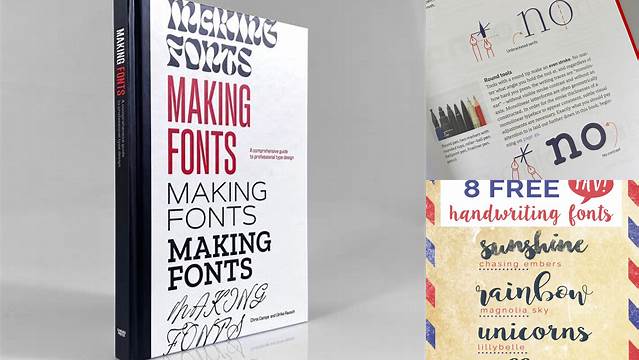
Free Hand Fonts: Styles & Uses For Unique Typography
Hey guys! Ever wondered how to make your designs pop with a personal touch? Well, diving into the world of free hand fonts might just be the answer. These fonts are all about injecting a bit of your own style and flair into your projects. Let's explore everything you need to know about these awesome fonts, from what they are to how you can use them like a pro.
1. What Exactly is a Free Hand Font?
So, what's the deal with free hand fonts? Simply put, they're fonts that mimic the look of actual handwriting. Think about it – no two people write exactly alike, right? That’s the beauty of these fonts; they bring that same unique, human quality to your digital designs. Whether it’s a flowing script or a quirky, blocky style, a free hand font adds a personal touch that standard fonts just can't match. They're perfect for anything that needs a bit of warmth and authenticity, from invitations to logos. You can find a huge variety of these fonts, each with its own personality, making it easy to find one that fits your project perfectly. So, ditch the rigid typefaces for a bit and let your designs breathe with the charm of a free hand font! Imagine your website header looking like it was personally signed, or your marketing materials having that relatable, down-to-earth vibe. It’s all possible with the right free hand font!
2. The Allure and Popularity of Free Hand Fonts
Why are free hand fonts so popular, you ask? Well, it's all about connection. In a world dominated by sleek, digital perfection, these fonts offer a refreshing dose of humanity. They make your content feel more relatable and personal, which is a huge win when you're trying to connect with your audience. People are naturally drawn to things that feel authentic, and a free hand font can instantly give your design that genuine touch. Plus, they're incredibly versatile. Need a font for a wedding invitation? A free hand font in a delicate script is perfect. Working on a fun, casual blog? A playful, quirky free hand font can set the right tone. The key is to choose a font that matches the mood and message of your project. As the digital world becomes increasingly saturated, standing out becomes crucial. Using a free hand font is a simple yet effective way to differentiate your brand or project and leave a lasting impression.
3. Distinguishing Features of Free Hand Fonts
Okay, let's dive into what makes free hand fonts stand out. The most obvious feature is their natural, handwritten look. Unlike standard fonts that are perfectly uniform, free hand fonts have slight imperfections and variations that mimic real handwriting. You might see variations in stroke thickness, slightly uneven baselines, or unique letterforms. These little details are what give free hand fonts their charm and make them feel authentic. Another key feature is their expressiveness. Because they're designed to look like handwriting, free hand fonts can convey a wide range of emotions and styles. Some are elegant and refined, while others are playful and casual. This makes them incredibly versatile and suitable for a variety of design projects. Additionally, many free hand fonts include ligatures and alternates, which are special characters that further enhance the handwritten feel. These features allow letters to connect more naturally or offer different stylistic options for certain characters. All these elements combine to create fonts that are visually interesting and full of personality.
4. Exploring Different Styles Within Free Hand Fonts
The world of free hand fonts is vast and varied, offering a style for every conceivable project. There are elegant scripts that evoke a sense of sophistication and are perfect for wedding invitations or high-end branding. These often feature flowing lines and delicate curves. On the other end of the spectrum, you'll find playful, casual fonts that are ideal for blogs, children's books, or anything that needs a lighthearted touch. These might have bolder strokes and quirky letterforms. Then there are the more rugged, textured free hand fonts that look like they were written with a marker or brush. These are great for adding a raw, edgy feel to your designs. And let's not forget the calligraphy-inspired fonts, which blend the beauty of traditional calligraphy with a modern twist. These are perfect for adding a touch of class and artistry to your projects. No matter what your design needs, there's a free hand font style out there that will fit the bill. It's all about exploring and finding the one that speaks to you and your project's unique personality.
5. The Psychology Behind Using Free Hand Fonts
Ever thought about how fonts can affect people's perceptions? Well, free hand fonts have a unique psychological impact. Because they mimic handwriting, they tend to evoke feelings of warmth, familiarity, and authenticity. When people see a free hand font, they're more likely to perceive the message as personal and genuine. This can be incredibly powerful, especially in marketing and branding. If you want your brand to come across as approachable and trustworthy, using a free hand font can be a great way to achieve that. They can also create a sense of nostalgia, reminding people of handwritten letters and personal notes. This can be particularly effective if you're targeting an audience that values tradition and personal connection. However, it's important to use them wisely. Overusing free hand fonts can make your design look cluttered or unprofessional. The key is to balance them with more neutral fonts to create a harmonious and effective design. Understanding the psychological impact of free hand fonts can help you use them strategically to connect with your audience on a deeper level.
6. How to Choose the Right Free Hand Font for Your Project
Choosing the right free hand font can feel overwhelming with so many options available. Here's a simple guide to help you nail it. First, consider the overall tone of your project. Is it formal or casual? Elegant or playful? Your font should align with that tone. For example, a fancy script font would be perfect for a wedding invitation but totally out of place on a tech blog. Next, think about readability. While free hand fonts are beautiful, some can be difficult to read, especially in large blocks of text. Make sure your chosen font is legible enough for your audience to easily understand your message. Also, consider the context in which the font will be used. Will it be on a website, in print, or on social media? Some fonts look great on screen but don't translate well to print, and vice versa. Finally, don't be afraid to experiment. Try out different fonts and see how they look with your design. Get feedback from others to see what resonates with them. Choosing the right free hand font is a process, so take your time and have fun with it!
7. Free Hand Fonts in Branding and Marketing
Free hand fonts can be a game-changer for branding and marketing. They add a personal touch that can make your brand feel more relatable and human. Think about it – in a world of corporate logos and polished marketing materials, a free hand font can help you stand out and create a memorable impression. They're especially effective for brands that want to convey a sense of authenticity, creativity, or playfulness. For example, a bakery might use a free hand font for its logo to evoke a feeling of homemade goodness. A children's clothing brand could use a fun, whimsical font to appeal to kids and parents alike. In marketing materials, free hand fonts can be used to highlight key messages or add a personal touch to headlines and call-to-actions. However, it's crucial to use them strategically. Overusing them can make your brand look unprofessional or inconsistent. The key is to balance them with more neutral fonts and use them in a way that complements your overall brand identity. When done right, free hand fonts can be a powerful tool for creating a brand that resonates with your target audience.
8. Designing Logos with Free Hand Fonts
Designing a logo with a free hand font can give your brand a unique and memorable identity. These fonts bring a personal touch that sets you apart from the competition. When choosing a free hand font for your logo, consider your brand's personality. Is it playful and quirky, or sophisticated and elegant? Your font should reflect that. Keep in mind that readability is crucial. Your logo needs to be easily recognizable, even at small sizes. Choose a font that's clear and legible, avoiding overly decorative or intricate styles. Also, think about scalability. Your logo will be used in various sizes, from business cards to billboards. Make sure the free hand font you choose looks good at all sizes. Consider pairing your free hand font with a simpler, more geometric font for a balanced look. This can help make your logo more versatile and professional. Finally, test your logo with different audiences to get feedback. See how they perceive your brand based on the logo design. Designing a logo with a free hand font requires careful consideration, but the result can be a distinctive and impactful brand identity.
9. Using Free Hand Fonts in Web Design
Incorporating free hand fonts into web design can add character and personality to your site. They can create a more engaging and welcoming experience for your visitors. When using free hand fonts on your website, think about the overall aesthetic you're aiming for. A free hand font can work wonders for headlines, banners, or accents. Use it sparingly to draw attention to key elements and create a unique visual hierarchy. One crucial factor is readability. A fancy or overly stylized free hand font might look great, but if visitors can't easily read your content, they'll quickly leave. Test your chosen font on different devices and screen sizes to ensure it remains legible across all platforms. Another important consideration is loading time. Some free hand fonts can be quite large, which can slow down your website's loading speed. Optimize your fonts to minimize their file size without sacrificing quality. Also, be mindful of font pairing. Combine your free hand font with a more neutral, easy-to-read font for body text. This creates a balanced and professional look. When used thoughtfully, free hand fonts can elevate your web design and create a memorable online experience for your audience.
10. Free Hand Fonts in Print Design
Free hand fonts shine in print design, adding a personal and artisanal touch to everything from invitations to posters. When using free hand fonts in print, consider the medium you're working with. For instance, a high-quality, smooth paper stock will showcase the details of an elegant script font beautifully, while a rougher paper might be better suited for a bolder, more textured font. Readability is key, especially in print where people will be reading at close range. Choose a free hand font that's clear and easy to read, even in smaller sizes. Also, think about color. Free hand fonts can look stunning in a variety of colors, but make sure the color you choose provides enough contrast against the background. Consider the overall design and how the free hand font complements the other elements. It should enhance the design, not distract from it. When printing, ensure the font is properly embedded in the file to avoid any unexpected substitutions or distortions. Free hand fonts can bring a unique charm to your print projects, making them stand out and feel more special.
11. Pairing Free Hand Fonts with Other Fonts
Pairing free hand fonts with other fonts is an art. The goal is to create a harmonious balance that enhances readability and visual appeal. A good rule of thumb is to pair a free hand font with a simpler, more neutral font. For example, if you're using a script font for headlines, pair it with a clean sans-serif font for the body text. This provides a clear contrast and prevents the design from becoming overwhelming. When choosing a font pairing, consider the mood and tone of your project. A playful free hand font might pair well with a modern, geometric sans-serif, while an elegant script might be better suited with a classic serif font. Also, think about the hierarchy of information. Use the free hand font to draw attention to key elements, like headlines or call-to-actions, and use the simpler font for the main body of text. This helps guide the reader's eye and makes the content more accessible. Experiment with different font pairings until you find one that feels just right. Don't be afraid to mix and match until you achieve the perfect balance.
12. The Impact of Free Hand Fonts on Readability
While free hand fonts are visually appealing, their impact on readability is crucial to consider. Some free hand fonts, especially those with intricate details or unusual letterforms, can be challenging to read, particularly in large blocks of text. Readability should always be a top priority, especially in web and print design. Choose free hand fonts that are clear and legible, even at smaller sizes. Avoid fonts with overly decorative elements or extreme variations in stroke thickness. If you're using a free hand font for headlines, make sure the body text is set in a more readable font. This creates a clear visual hierarchy and ensures that the content is easy to consume. Test your font choices with different audiences to get feedback on readability. Ask people to read a sample of text and see if they have any difficulty. Pay attention to kerning and leading, which can significantly impact readability. Adjust these settings to optimize the spacing between letters and lines. By carefully considering the impact of free hand fonts on readability, you can ensure that your designs are both beautiful and functional.
13. Free Hand Fonts for Social Media Graphics
Free hand fonts can make your social media graphics stand out and grab attention. They add a personal touch that can help you connect with your audience on a more human level. When designing social media graphics, use free hand fonts strategically to highlight key messages or add a unique visual element. For example, you could use a free hand font for a quote, a call-to-action, or a special announcement. Choose fonts that are easy to read, even on small screens. Social media users are often scrolling quickly, so your message needs to be clear and concise. Consider the overall aesthetic of your brand and choose free hand fonts that align with your brand's personality. A playful font might be perfect for a fun, lighthearted brand, while a more elegant font might be better suited for a sophisticated brand. Use contrasting colors to make your text stand out against the background. High contrast improves readability and ensures that your message is easily visible. Test your graphics on different devices to ensure they look good on both desktop and mobile. Free hand fonts can be a powerful tool for creating engaging social media graphics that capture attention and drive engagement.
14. Best Practices for Using Free Hand Fonts
To make the most of free hand fonts, follow these best practices. First, always prioritize readability. Choose fonts that are easy to read, even at smaller sizes. Avoid overly decorative or intricate fonts that can be difficult to decipher. Use free hand fonts sparingly. They're most effective when used to highlight key elements or add a personal touch. Overusing them can make your design look cluttered and unprofessional. Pair free hand fonts with simpler, more neutral fonts to create a balanced and harmonious look. This helps ensure that your design is both visually appealing and easy to read. Consider the context in which the font will be used. A font that looks great on a website might not be the best choice for a print project, and vice versa. Test your font choices on different devices and screen sizes to ensure they look good across all platforms. Pay attention to kerning and leading to optimize readability. Adjust these settings to improve the spacing between letters and lines. Finally, don't be afraid to experiment. Try out different fonts and see how they look with your design. Get feedback from others to see what resonates with them. By following these best practices, you can use free hand fonts effectively to create stunning and impactful designs.
15. Free Hand Fonts in Invitation Design
Free hand fonts are a natural fit for invitation design, adding a personal and elegant touch to any event. Whether it's a wedding, a birthday party, or a formal gala, a free hand font can set the perfect tone. When choosing a free hand font for your invitations, consider the formality of the event. A flowing script font is ideal for weddings and other formal occasions, while a more casual font might be better suited for a birthday party or informal gathering. Readability is essential, so choose a font that's easy to read, even in smaller sizes. Avoid overly decorative fonts that can be difficult to decipher. Consider the color of the font and how it contrasts with the background. A high-contrast combination will ensure that the text is easily visible. Use free hand fonts sparingly, focusing on key elements like the names of the hosts, the date, and the location. Pair the free hand font with a simpler, more neutral font for the body of the invitation. This creates a balanced and harmonious look. Pay attention to the overall design of the invitation and how the free hand font complements the other elements. When done right, free hand fonts can make your invitations feel special and unique.
16. The Future of Free Hand Fonts in Design
The future of free hand fonts in design looks bright. As technology advances and design trends evolve, free hand fonts continue to play a significant role in creating unique and engaging visual experiences. We're seeing more and more designers embrace the personal touch that free hand fonts offer, using them to add character and authenticity to their projects. As digital design becomes increasingly sophisticated, the demand for fonts that mimic the look of handwriting is likely to grow. We can expect to see new and innovative free hand fonts emerge, pushing the boundaries of typography and design. The integration of artificial intelligence and machine learning could also lead to the development of more personalized and adaptive free hand fonts that respond to individual user preferences. In the future, free hand fonts will likely become even more versatile and accessible, empowering designers to create designs that are both visually stunning and deeply personal.
17. Free Hand Fonts and Calligraphy
Free hand fonts and calligraphy share a close relationship. Many free hand fonts are inspired by traditional calligraphy styles, capturing the elegance and artistry of handwritten lettering. Calligraphy is the art of beautiful handwriting, and it has a long and rich history. Calligraphic fonts often feature flowing lines, delicate curves, and intricate details that mimic the strokes of a calligrapher's pen. These fonts are perfect for adding a touch of sophistication and refinement to any design. While not all free hand fonts are calligraphic, many draw inspiration from this art form, incorporating elements of calligraphy into their design. When choosing a free hand font, consider whether you want a font that is explicitly calligraphic or one that simply evokes the spirit of calligraphy. Both can be beautiful and effective, depending on the overall aesthetic you're trying to achieve. Understanding the connection between free hand fonts and calligraphy can help you appreciate the artistry and craftsmanship that goes into creating these unique typefaces.
18. How to Create Your Own Free Hand Font
Creating your own free hand font can be a rewarding and creative endeavor. It allows you to express your unique style and personality through typography. To start, you'll need a digital drawing tool, such as Adobe Illustrator or Procreate, and a font creation software, like FontLab or Glyphs. Begin by sketching out each letter of the alphabet, both uppercase and lowercase. Pay attention to the consistency of your letterforms, but don't be afraid to add your own personal flair. Once you're happy with your sketches, digitize them using your drawing tool. Then, import your digitized letterforms into your font creation software. Use the software to refine your letterforms, adjust spacing, and add kerning pairs. Kerning is the adjustment of space between individual letters to improve readability. Consider adding ligatures, which are special characters that connect two or more letters. This can enhance the handwritten feel of your font. Test your font thoroughly to ensure it's readable and visually appealing. Ask others to provide feedback and make any necessary adjustments. Creating your own free hand font takes time and effort, but the result is a unique typeface that reflects your individual style.
19. The Ethical Use of Free Hand Fonts
Using free hand fonts ethically is important to respect the creators and ensure fair use. Many free hand fonts are available for free, but it's crucial to check the license before using them. Some free fonts are for personal use only, while others can be used for commercial purposes. If you plan to use a free hand font for a commercial project, make sure the license allows it. If the font is not free, you'll need to purchase a license from the font designer or foundry. The cost of a font license can vary depending on the font and the intended use. Always credit the font designer when using their font, especially in commercial projects. This is a simple way to show your appreciation for their work and help promote their font. Avoid modifying free hand fonts without permission from the designer. Altering a font can infringe on their copyright and may result in legal issues. Be mindful of cultural sensitivity when using free hand fonts. Some fonts may have cultural significance or be associated with specific communities. Using them inappropriately could be offensive or disrespectful. By following these ethical guidelines, you can ensure that you're using free hand fonts responsibly and respectfully.
20. Free Hand Fonts and Accessibility
Ensuring accessibility when using free hand fonts is crucial to make your designs inclusive and usable for everyone. Accessibility means designing for people with disabilities, ensuring that they can access and understand your content. When using free hand fonts, readability is paramount. Choose fonts that are clear and legible, even for people with visual impairments. Avoid overly decorative or intricate fonts that can be difficult to decipher. Provide alternative text for images that contain free hand fonts. This allows screen readers to describe the image to visually impaired users. Use sufficient color contrast between the font and the background. Low contrast can make it difficult for people with low vision to read the text. Ensure that your website or document is keyboard accessible, allowing users to navigate and interact with the content using only a keyboard. Test your designs with assistive technologies, such as screen readers, to identify any accessibility issues. By following these accessibility guidelines, you can ensure that your designs are usable and inclusive for everyone, regardless of their abilities.
21. Popular Free Hand Fonts to Download
Looking for some great free hand fonts to download? Here are a few popular options to get you started. "Amatic SC" is a simple but effective hand-drawn font that's great for headlines and posters. It has a playful, casual feel that works well for a variety of projects. "Permanent Marker" is a bold, marker-style font that's perfect for adding a strong, attention-grabbing element to your designs. It's ideal for logos, titles, and anything that needs to stand out. "Patrick Hand" is a friendly, handwritten font that's easy to read and has a warm, inviting feel. It's a good choice for body text, invitations, and other projects that require a personal touch. "Coming Soon" is a quirky, handwritten font that has a unique, slightly imperfect look. It's great for adding a touch of character to your designs. "Homemade Apple" is a charming, handwritten font that has a sweet, nostalgic feel. It's perfect for invitations, cards, and other projects that evoke a sense of warmth and nostalgia. These are just a few of the many great free hand fonts available for download. Explore different options and find the ones that best suit your style and project needs.
22. Common Mistakes When Using Free Hand Fonts
Avoiding common mistakes when using free hand fonts can help you create more effective and visually appealing designs. One common mistake is overusing free hand fonts. Using too many can make your design look cluttered and unprofessional. Stick to using them sparingly to highlight key elements or add a personal touch. Another mistake is choosing fonts that are difficult to read. Readability should always be a top priority, so choose fonts that are clear and legible, even at smaller sizes. Failing to pair free hand fonts with simpler, more neutral fonts can also be a mistake. Pairing them with simpler fonts creates a balanced and harmonious look. Ignoring kerning and leading can negatively impact readability. Pay attention to these settings to optimize the spacing between letters and lines. Using free hand fonts in inappropriate contexts can also be a mistake. Consider the overall tone of your project and choose fonts that align with that tone. Finally, failing to test your font choices on different devices and screen sizes can lead to unexpected results. By avoiding these common mistakes, you can use free hand fonts more effectively to create stunning and impactful designs.
23. The Versatility of Free Hand Fonts in Design Projects
The versatility of free hand fonts makes them suitable for a wide range of design projects. From branding and marketing to web and print design, free hand fonts can add a personal touch that sets your designs apart. In branding, they can help create a unique and memorable brand identity that resonates with your target audience. In marketing, they can be used to highlight key messages and add a personal touch to your materials. In web design, they can enhance the user experience and create a more engaging and welcoming online presence. In print design, they can add a touch of elegance and sophistication to invitations, cards, and other printed materials. Whether you're designing a logo, a website, a brochure, or an invitation, free hand fonts can be a valuable tool for creating designs that are both visually appealing and effective. Their ability to convey warmth, authenticity, and personality makes them a versatile choice for any design project.
24. Free Hand Fonts vs. Script Fonts: Understanding the Difference
While free hand fonts and script fonts share some similarities, it's important to understand the differences between them. Both types of fonts mimic handwriting, but free hand fonts tend to have a more casual, informal look, while script fonts are typically more elegant and formal. Free hand fonts often have slight imperfections and variations that mimic real handwriting, while script fonts are often more polished and refined. Script fonts are often inspired by traditional calligraphy, while free hand fonts can draw inspiration from a wider range of sources, including marker lettering, brush strokes, and even doodles. When choosing between a free hand font and a script font, consider the overall tone of your project. If you're aiming for a casual, approachable feel, a free hand font might be the better choice. If you're aiming for a more elegant, sophisticated look, a script font might be more appropriate. Understanding the nuances between these two types of fonts can help you make the right choice for your design needs.
25. Finding Inspiration for Your Free Hand Font Designs
Finding inspiration for your free hand font designs can spark creativity and help you develop unique and innovative typefaces. Look to real handwriting for inspiration. Study different handwriting styles and note the unique characteristics of each. Explore vintage lettering and signage. These sources can provide a wealth of ideas for creating free hand fonts with a retro or nostalgic feel. Experiment with different writing tools, such as markers, brushes, and pens. Each tool will produce a different effect, which can inspire new and interesting font designs. Look to nature for inspiration. The shapes and forms found in nature can be translated into unique and organic font designs. Browse online font galleries and design blogs to see what other designers are creating. This can help you stay up-to-date on current trends and discover new techniques. Don't be afraid to experiment and try new things. The more you explore, the more likely you are to find inspiration for your free hand font designs.
26. The Importance of Kerning and Leading in Free Hand Fonts
Kerning and leading are essential elements in typography, and they're particularly important when working with free hand fonts. Kerning refers to the adjustment of space between individual letters to improve readability and visual appeal. Because free hand fonts often have irregular shapes and spacing, kerning is crucial for ensuring that the letters fit together harmoniously. Leading refers to the vertical space between lines of text. Proper leading can significantly improve readability, especially when working with longer blocks of text. When setting free hand fonts, pay close attention to kerning and leading to optimize readability and create a visually pleasing design. Adjust these settings carefully to ensure that the letters are evenly spaced and the lines of text are easy to read. Experiment with different kerning and leading values until you achieve the desired effect. The time and effort you invest in kerning and leading will pay off in the form of more readable and visually appealing designs.
27. Using Free Hand Fonts for Headlines and Titles
Free hand fonts are a great choice for headlines and titles, adding a personal and attention-grabbing element to your designs. When using free hand fonts for headlines, choose fonts that are bold and easy to read. Avoid overly decorative or intricate fonts that can be difficult to decipher. Consider the overall tone of your project and choose fonts that align with that tone. A playful font might be perfect for a fun, lighthearted project, while a more elegant font might be better suited for a sophisticated project. Use contrasting colors to make your headlines stand out against the background. High contrast improves readability and ensures that your message is easily visible. Keep your headlines concise and to the point. Use keywords strategically to capture attention and convey your message effectively. Experiment with different font sizes and styles to find the perfect look for your headlines. Free hand fonts can be a powerful tool for creating headlines that capture attention and communicate your message effectively.
28. The Emotional Impact of Different Free Hand Fonts
Different free hand fonts evoke different emotions, and understanding these nuances can help you choose the right font for your project. Elegant script fonts often evoke feelings of sophistication, romance, and nostalgia. They're perfect for wedding invitations, formal events, and anything that needs a touch of class. Playful, casual fonts often evoke feelings of fun, joy, and lightheartedness. They're great for children's books, birthday parties, and anything that needs a touch of whimsy. Bold, hand-drawn fonts often evoke feelings of energy, excitement, and creativity. They're perfect for logos, posters, and anything that needs to make a statement. Rustic, textured fonts often evoke feelings of warmth, authenticity, and nostalgia. They're great for vintage-inspired designs, handmade goods, and anything that needs a personal touch. By understanding the emotional impact of different free hand fonts, you can choose the right font to connect with your audience and convey your message effectively.
29. Monogram and Free Hand Fonts
Monograms are a classic design element, and pairing them with free hand fonts can create a personalized and elegant look. A monogram is a design consisting of two or more letters, typically initials, that are intertwined or combined to create a single symbol. When using free hand fonts for monograms, choose fonts that are easy to read and have a classic, timeless feel. Script fonts and calligraphic fonts are often a good choice for monograms, as they evoke a sense of elegance and sophistication. Consider the overall style of your design and choose a free hand font that complements that style. For example, if you're creating a monogram for a wedding invitation, you might choose a delicate script font with flowing lines. If you're creating a monogram for a business logo, you might choose a bolder, more modern font. Pay attention to the spacing and arrangement of the letters to create a visually balanced and harmonious monogram. When done right, monograms and free hand fonts can create a personalized and sophisticated design that stands the test of time.
30. Combining Free Hand Fonts with Geometric Design
Combining free hand fonts with geometric design elements can create a visually striking and modern aesthetic. Geometric design is characterized by the use of shapes, lines, and patterns to create structured and balanced compositions. When combining free hand fonts with geometric design, use the geometric elements to create a framework or structure for the free hand font. This can help ground the font and prevent it from feeling too chaotic. Use contrasting colors and textures to create visual interest. For example, you might pair a bold, geometric background with a delicate, handwritten font. Consider the overall tone of your design and choose geometric elements and free hand fonts that align with that tone. For example, if you're aiming for a modern, minimalist look, you might choose simple geometric shapes and a clean, sans-serif free hand font. Experiment with different combinations until you find a look that you love. Combining free hand fonts with geometric design can create a dynamic and visually appealing design that stands out from the crowd.